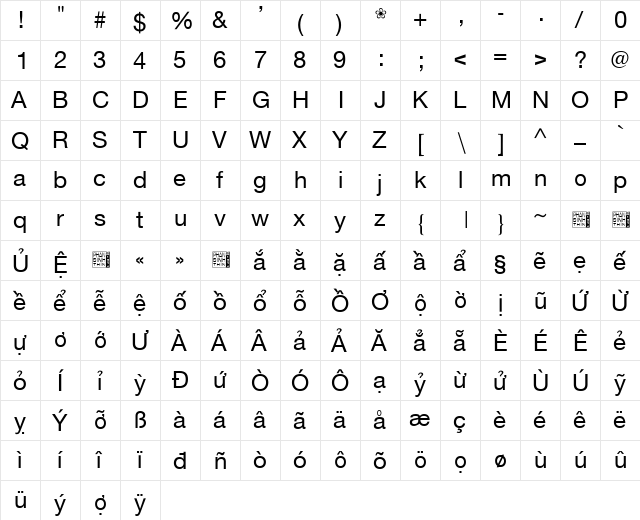
Hai Nhi by Th.Phan Dinh Regular
Design Context for Hai Nhi by Th.Phan Dinh Typeface
Hai Nhi by Th.Phan Dinh is a composed and adaptable typeface that performs quietly and consistently across a wide range of design contexts.